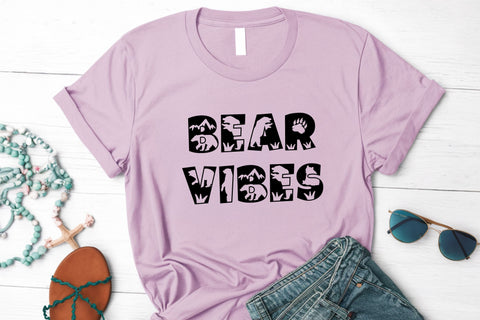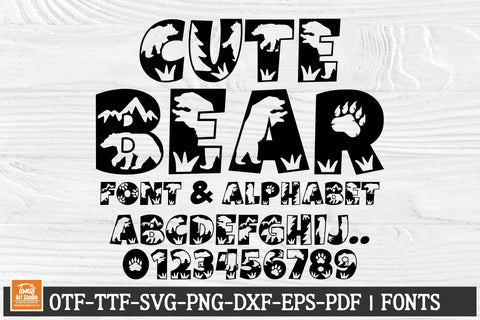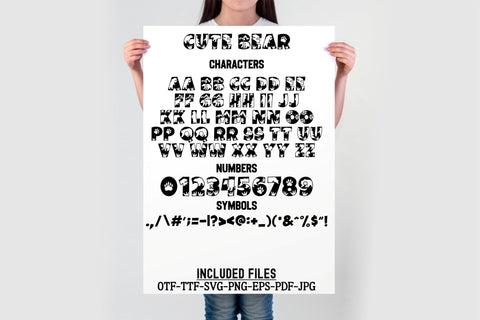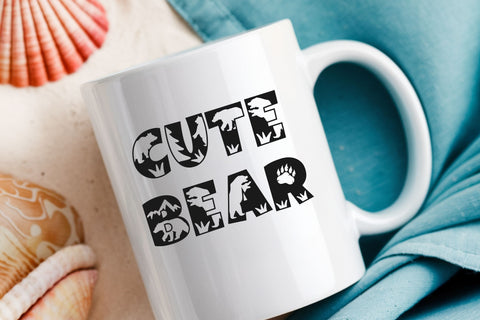
Cute Bear Font | Animal Alphabet SVG | Kids Letters Font
Create adorable designs with this Cute Bear Font, a playful animal-themed alphabet perfect for kids' projects, nursery decor, and adventure-inspired crafts! Each letter features charming wildlife elements, including bears, mountains, and paw prints, making it ideal for nature lovers and outdoor-themed creations. This high-quality installable font and cut file bundle is great for Cricut, Silhouette, and laser cutting projects.
🎯 Perfect for:
✔ Kids' alphabet crafts & school projects
✔ Forest and wildlife-themed designs
✔ Nursery and kids' room decor
✔ Adventure and camping-inspired prints
✔ T-shirts, stickers, wall art, and more!
Get creative with this fun bear-themed font and bring the wilderness to life in your designs!